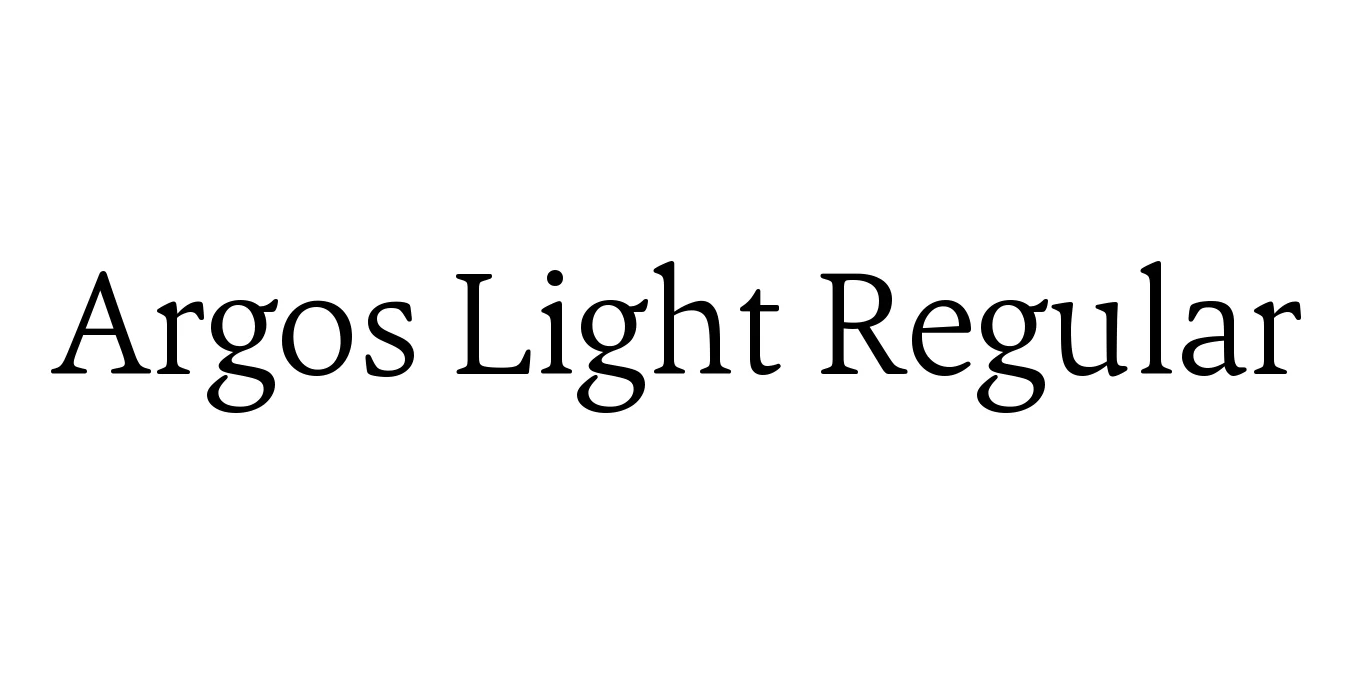
Argos Light Regular
Designed by Harold Lohner
Argos Light Regular is an elegant and sophisticated serif typeface that draws its primary inspiration from the Art Nouveau movement and early 20th-century display types. This digital revival focuses on the delicate balance between organic, flowing curves and a structured typographic framework, resulting in a font that feels both historical and remarkably fresh for contemporary design applications.
The Light Regular weight is particularly noted for its high-contrast strokes and graceful terminals, which are designed to perform exceptionally well in large-scale display settings. It is a preferred choice for designers looking to evoke a sense of vintage luxury, making it a staple for high-end editorial work, literary covers, and artisanal branding projects that require a touch of timeless class.
Argos Light Regular Best Uses
Superior for magazine headlines and sophisticated pull quotes.
Ideal for luxury fashion labels, boutique logos, and identity systems.
Perfect for title pages and covers of historical or literary fiction.
Lends a refined and artistic touch to wedding and formal event stationery.